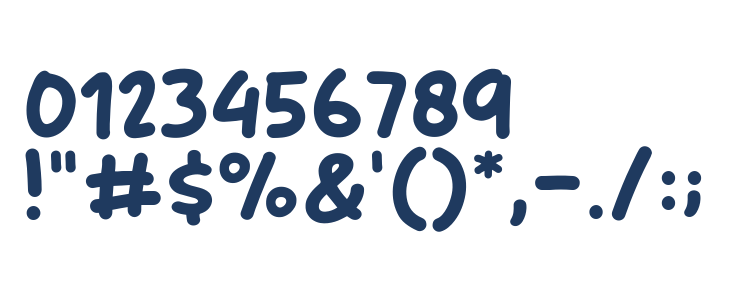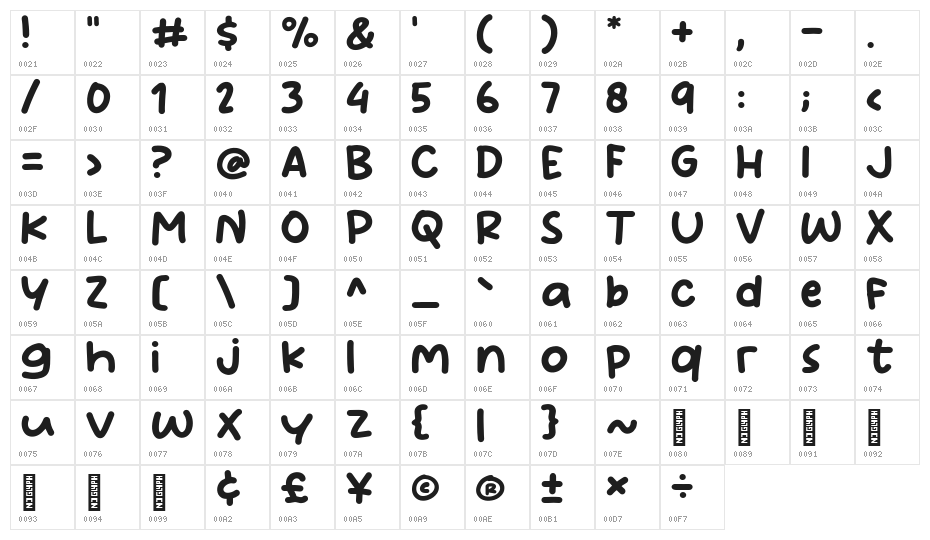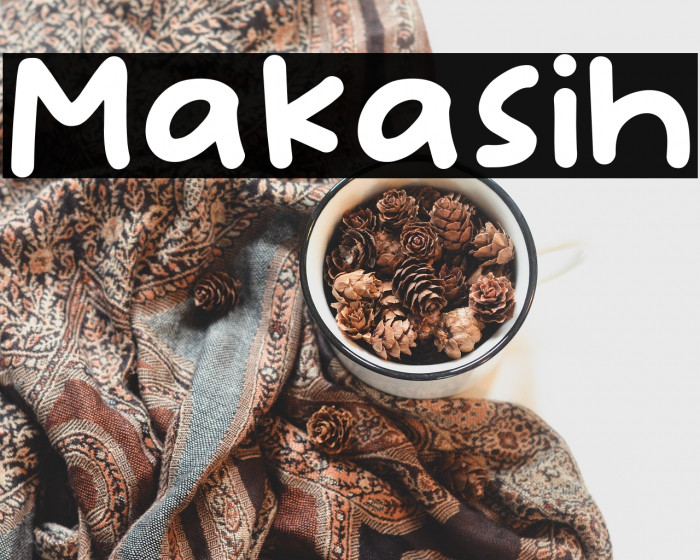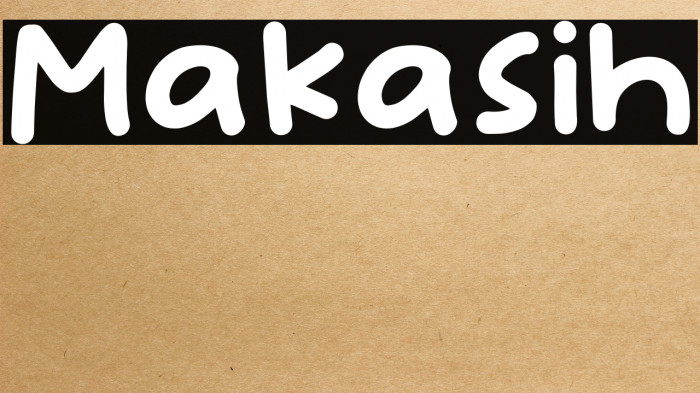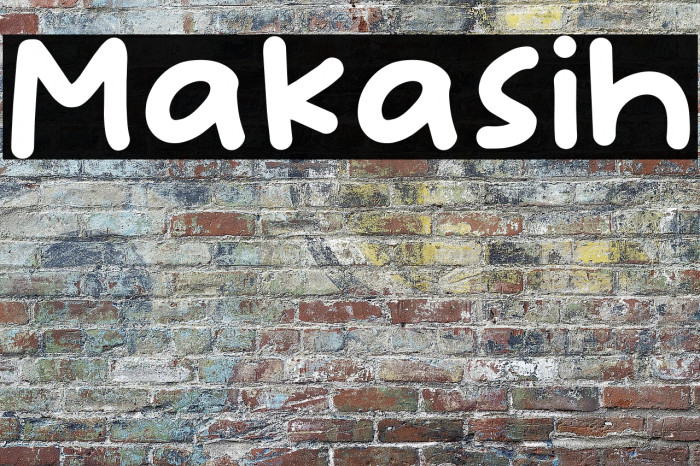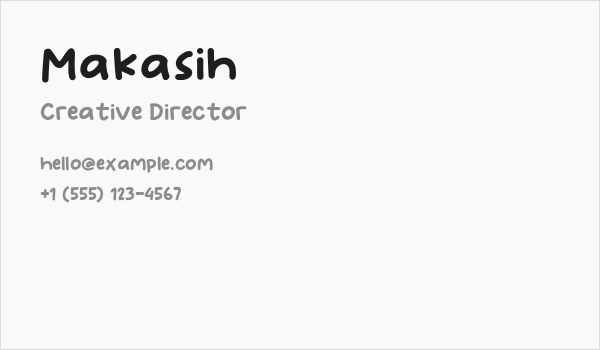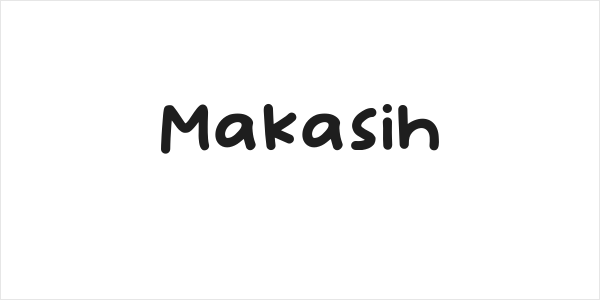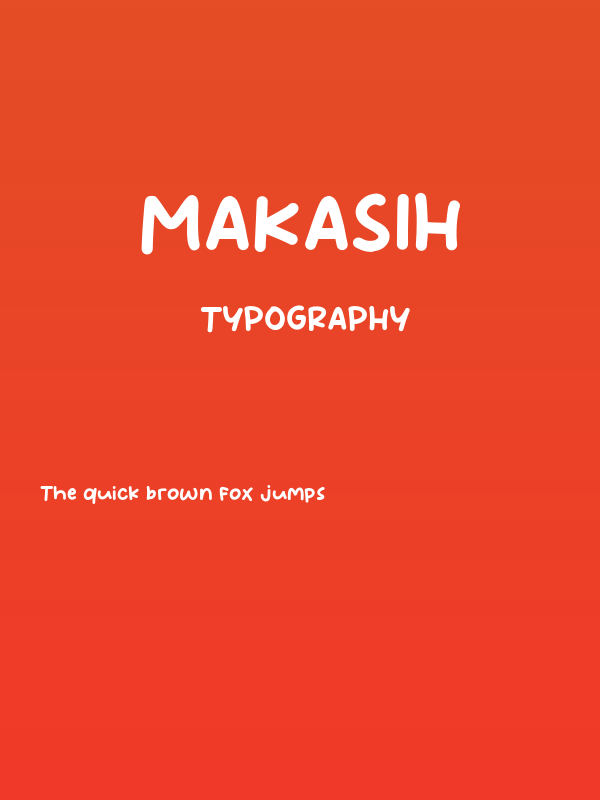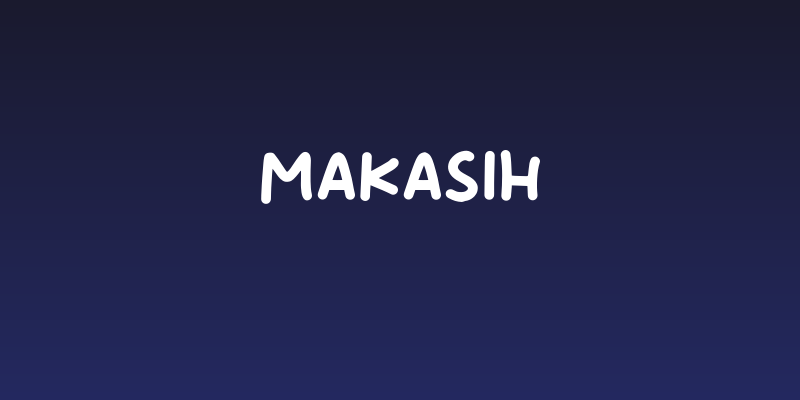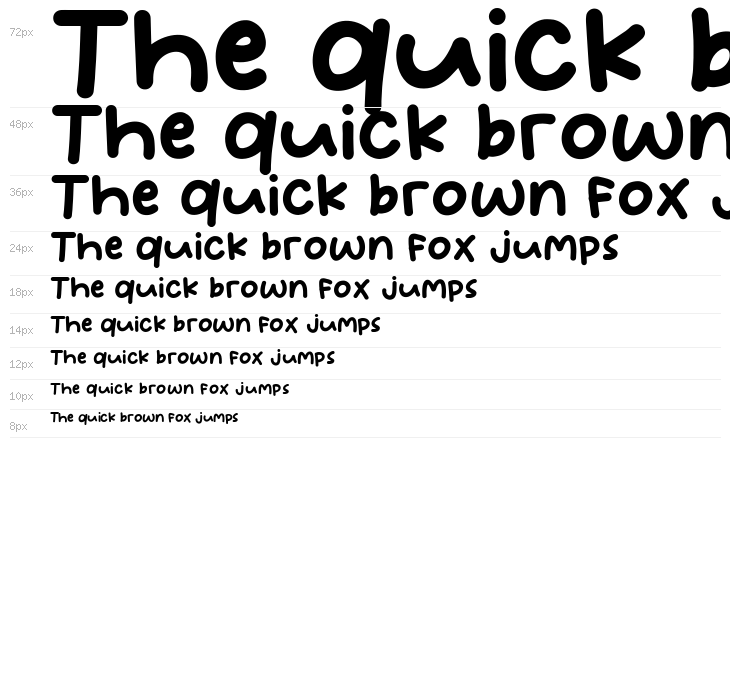
Makasih Font
Makasih Description
This playful and rounded font exudes a casual and friendly vibe, making it ideal for informal and creative projects. The characters are bold and slightly irregular, giving them a hand-drawn appearance that adds a touch of whimsy. The uppercase and lowercase letters maintain a consistent style, with smooth curves and a uniform thickness that ensures readability. Numbers and special characters are equally well-crafted, complementing the overall aesthetic. This font is perfect for projects that require a fun and approachable look, such as children's books, greeting cards, or playful branding.
| Proposed Projects | Children's books, greeting cards, playful branding, creative posters. |